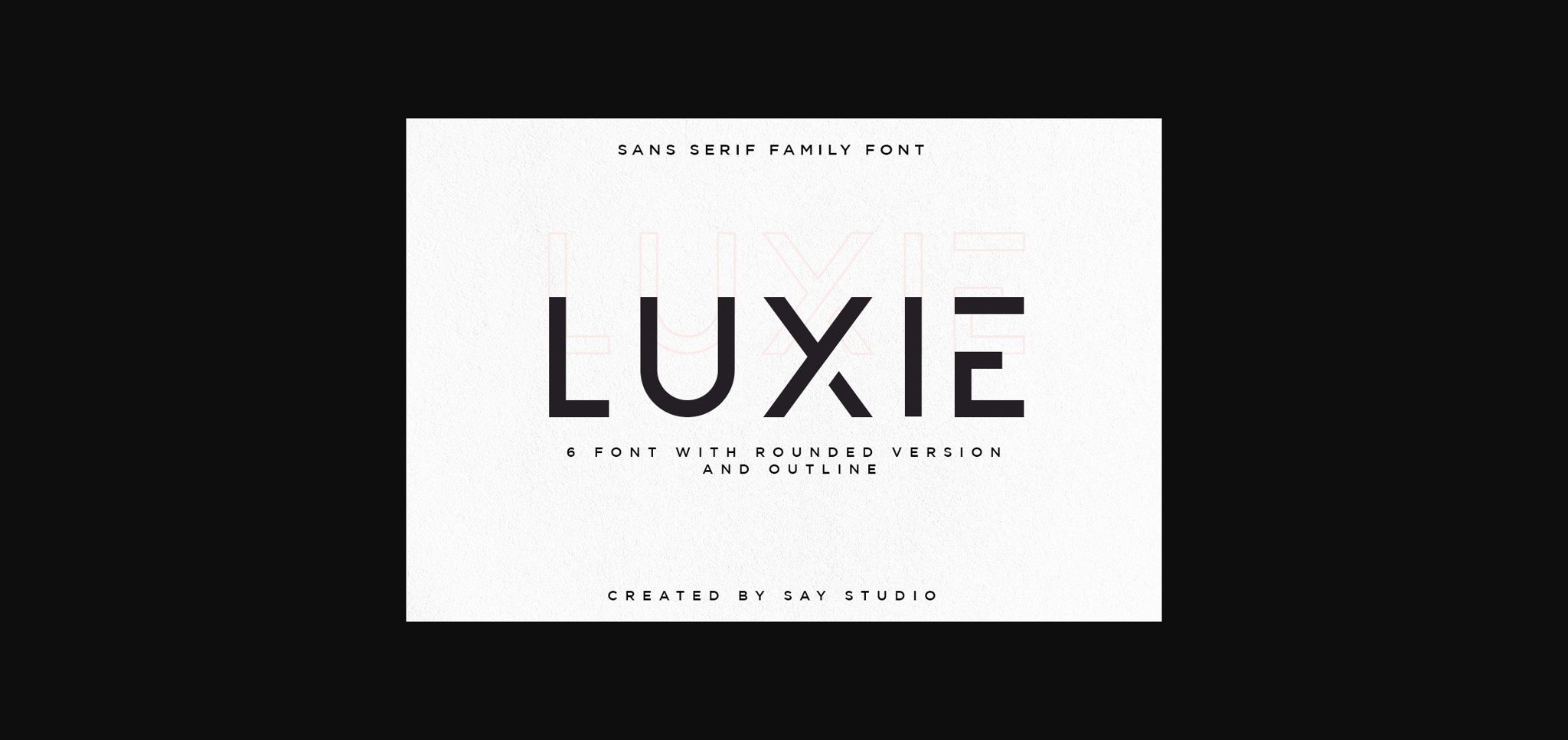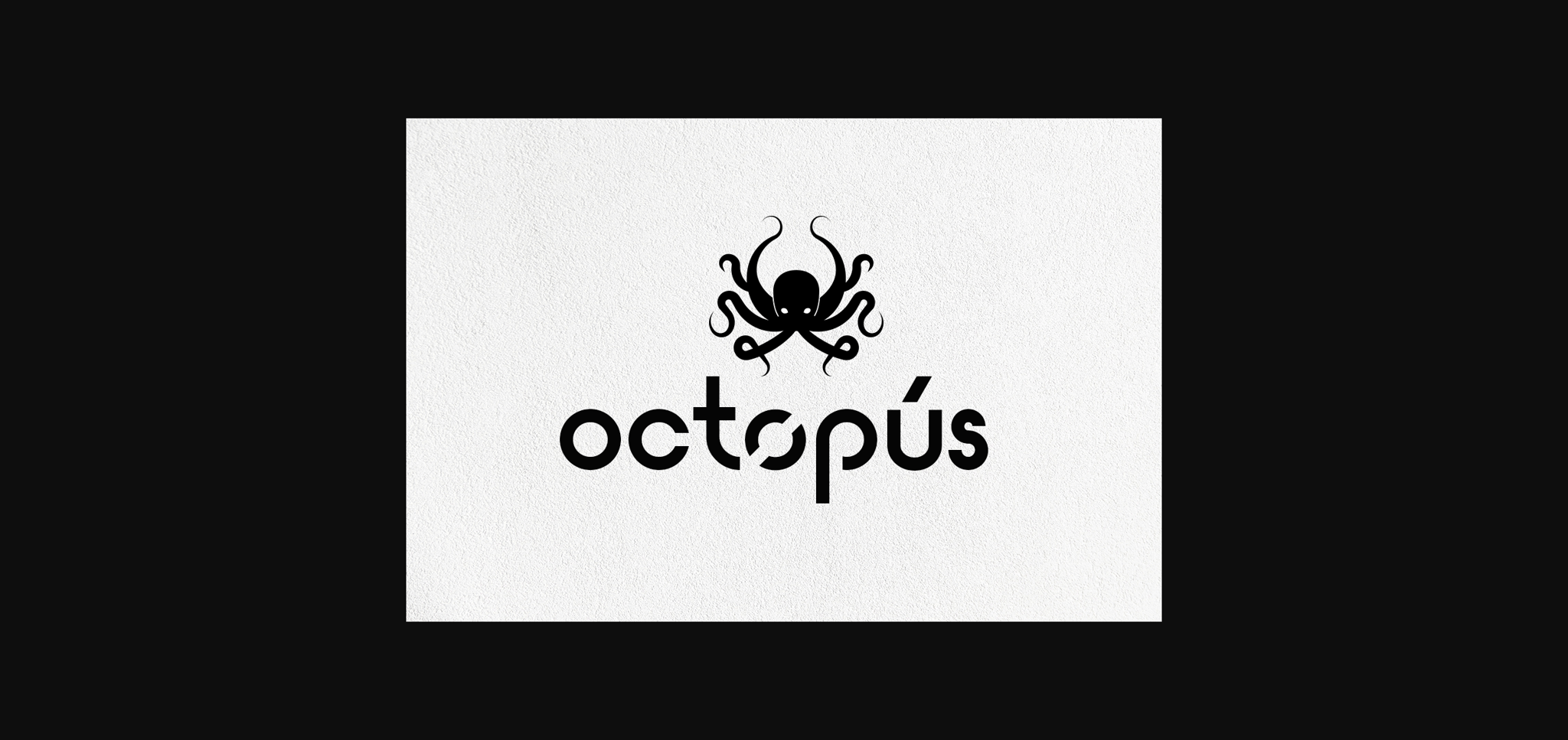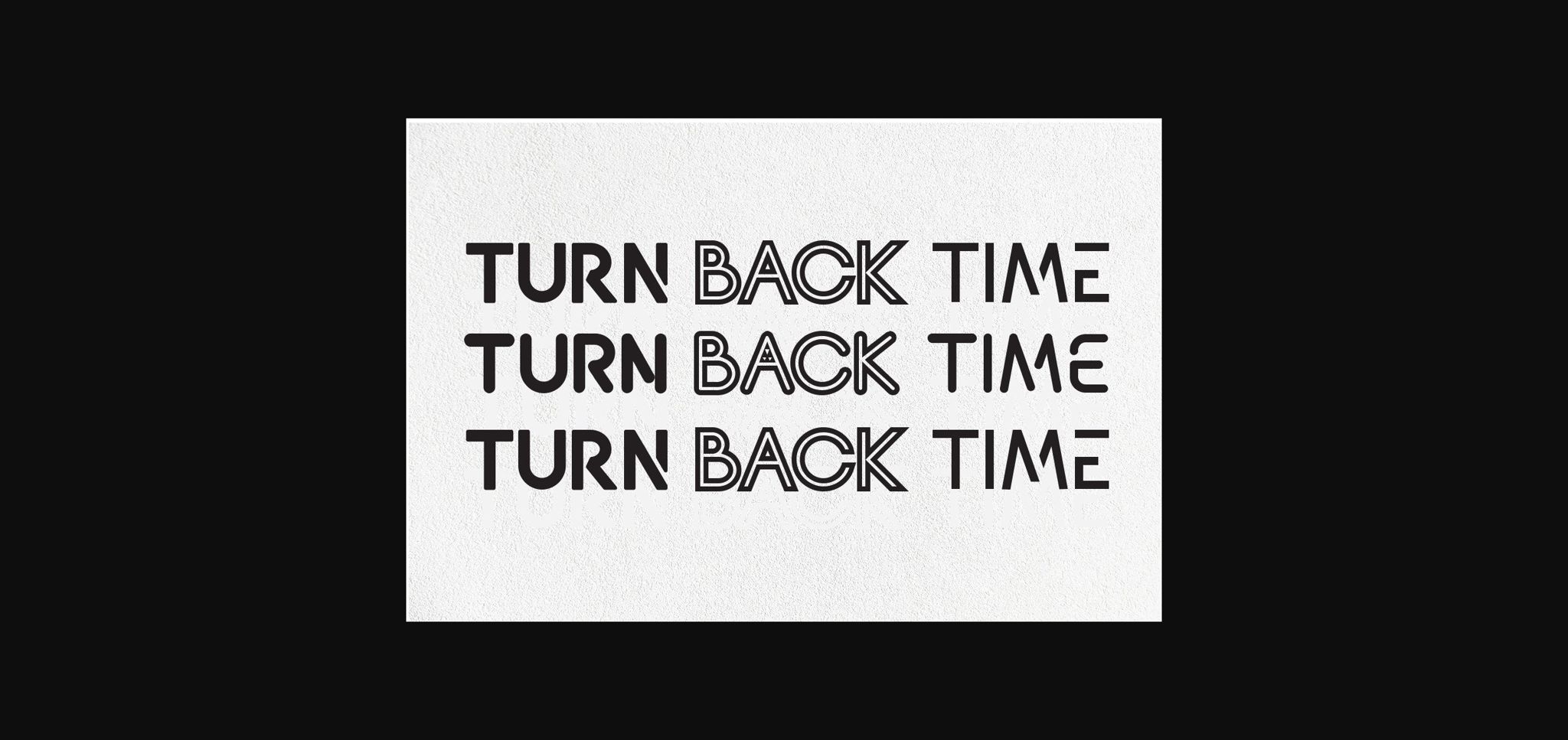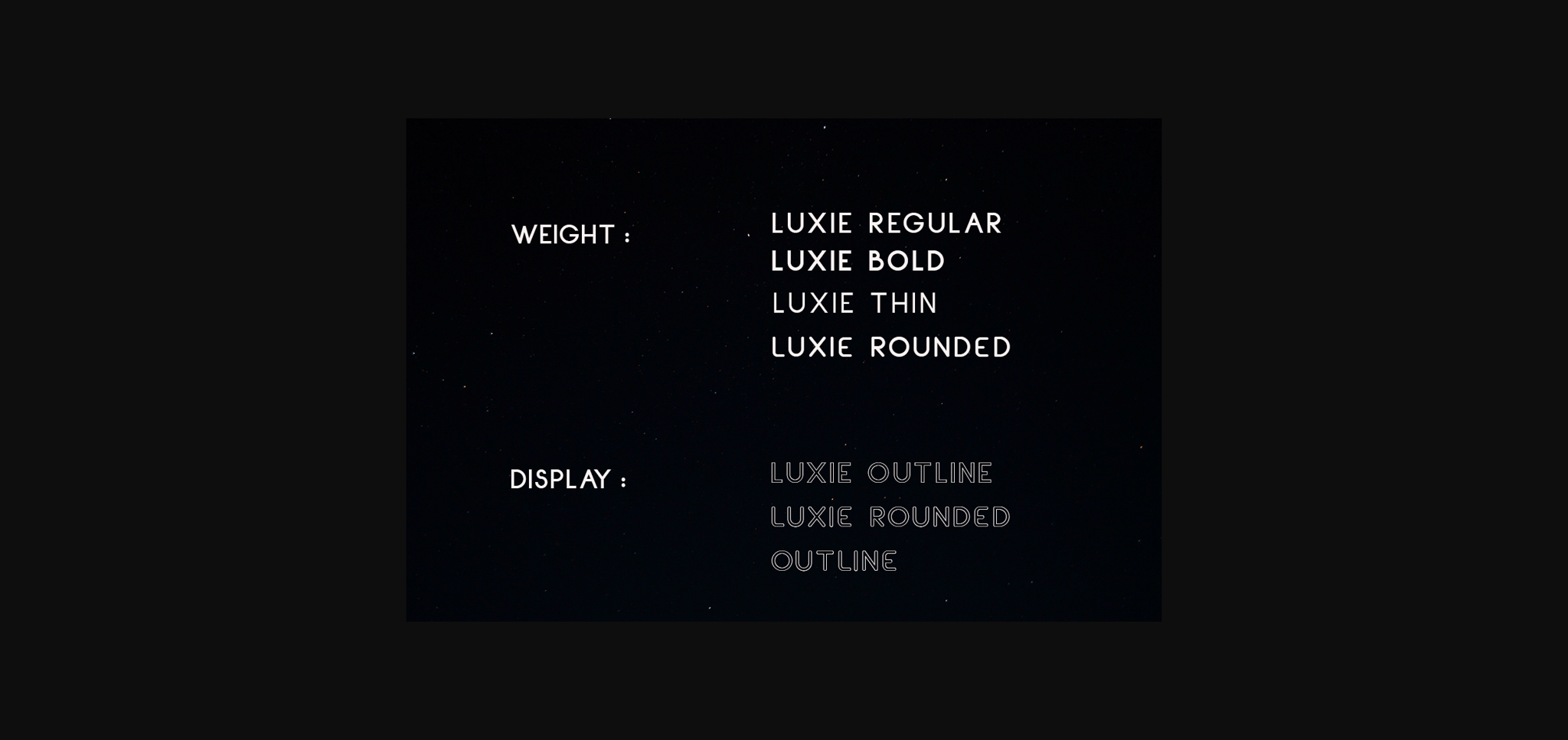
About Luxie Font
Luxie is a new Geometric font perfect for logos. The font is suitable for creating wordmarks, titles, and taglines. Use alternates to emphasize separate letters in your text. The typeface is versatile and can be successfully used in magazines, posters, branding, websites, etc. This font is PUA encoded, which means you can access all of the glyphs and swashes with ease!